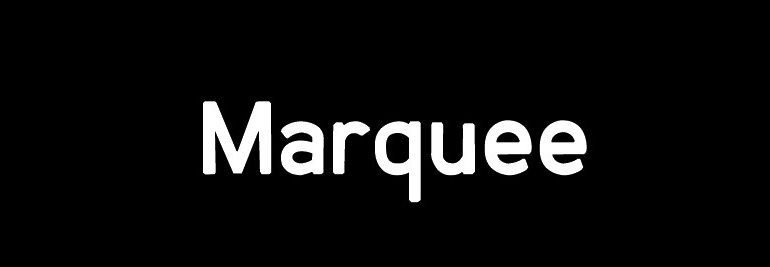
Here we are about to present the modern typeface Marquee Font. that can be utilized in display and poster designs. This font is the creation of Daniel Pelavin in 2010.
The letter styling of this typeface is similar to the thunderstorm font and it has been in the most advanced way you can able be to find in the American eagle emblem. It is one of the many reasons that make this font a great typeface.
View of Marquee Font
Just take a moment and look at the styling of this typeface to get the proper idea about how it will look in your projects.
This typeface can be utilized in many projects some of them are listed below.
- Signage and trade show displays
- Websites
- Stadium branding
- Game interfaces
- Animated logos
- Museum exhibitions
- Stadium branding
- Vehicle wraps
- Trailers
- Email marketing templates
| Designer | Daniel Pelavin |
What Type of Font Is Marquee?
This is one of the best sans serif font that is developed by Daniel Pelavin in 2010
What’s the Closest Font to Marquee?
The Phoenix font is very close to the Marquee font.